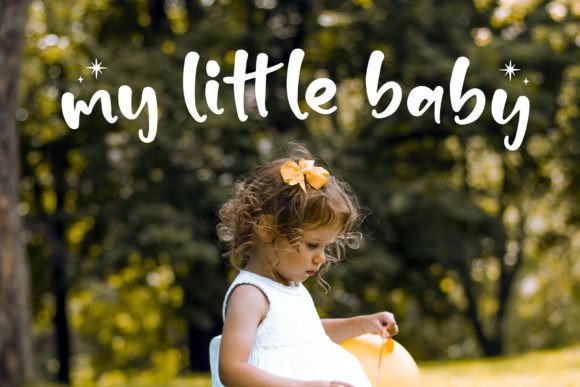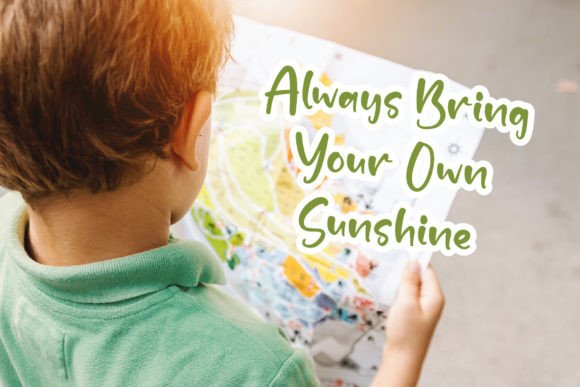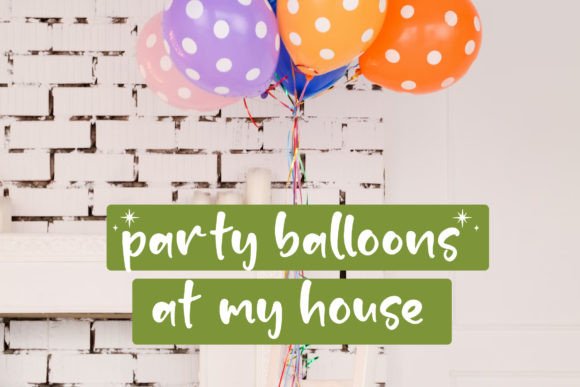
Introduction to Ratclife Font
Ratclife is a fun and bubbly handwritten font.
Whether you are using it for cartoon-related designs, children’s games, quotes, titles, brand names, book covers, posters, or just any creation that requires a touch of joy, this font is a great choice .
Key Features of Ratclife Font
Why Choose Ratclife Font?
Ratclife Font offers exceptional quality and versatility, making it a valuable addition to your design toolkit. Whether you’re creating for personal projects or commercial use, Ratclife Font delivers professional results.